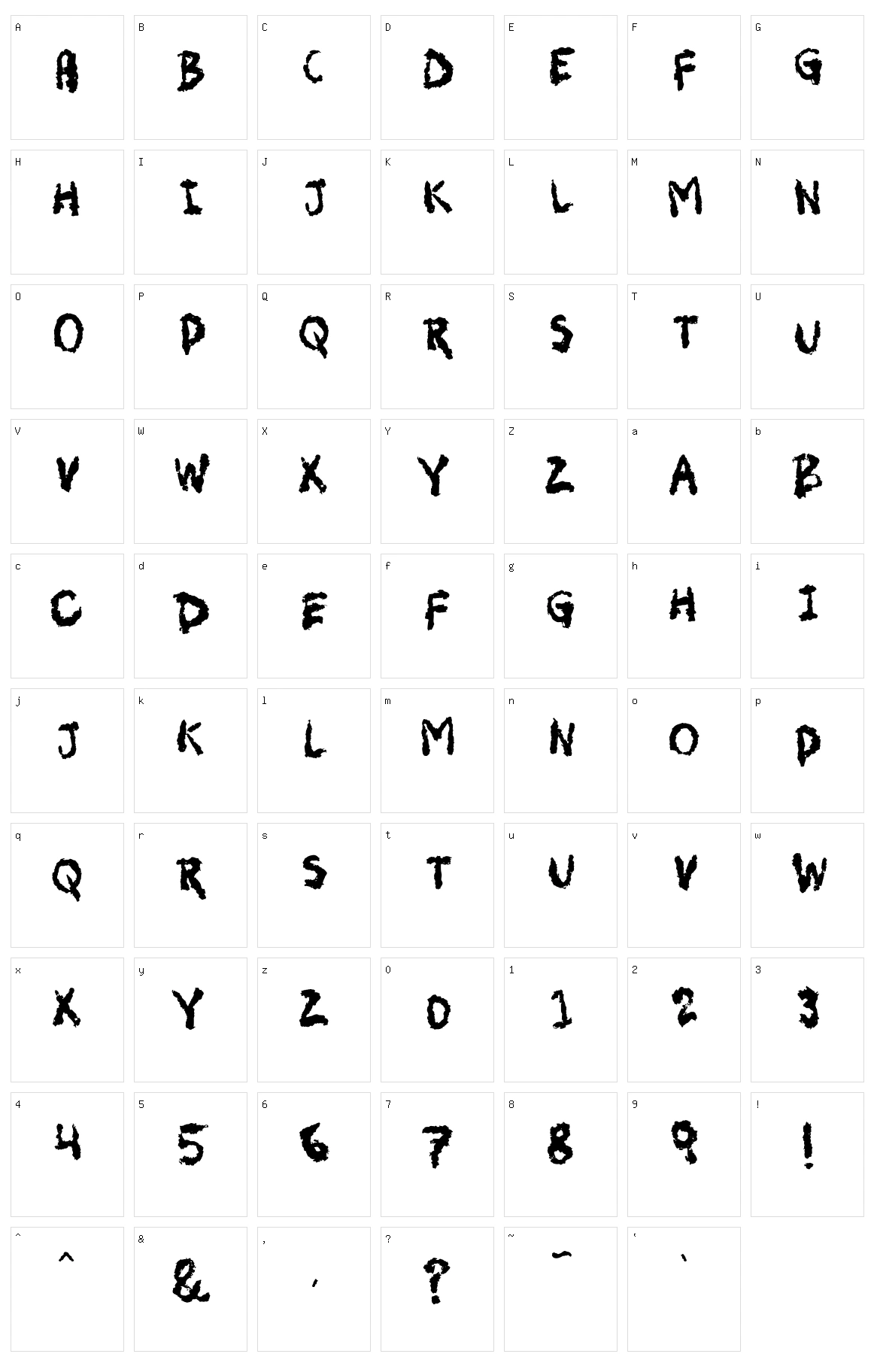
The free font Vtks Xumbrega is carefully designed by Douglas Vitkauskas, showcasing a thoughtful balance of creativity and usability and falls under the Horror font style. When you download the ZIP file, it contains only 48.36 KB of font files, making it lightweight and quick to download. Please review the license details below to understand permitted usage and distribution rights. If license information is not available, we recommend using this font for personal projects only or contacting the author directly for commercial usage permissions.